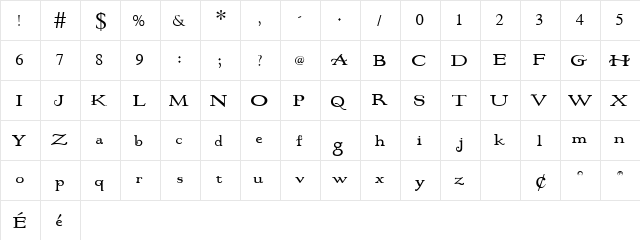
MummJoyToTheWorld Regular
Design Context for MummJoyToTheWorld Typeface
MummJoyToTheWorld takes a measured approach to typography — its balanced proportions and neutral character make it a reliable workhorse for both digital and print work.